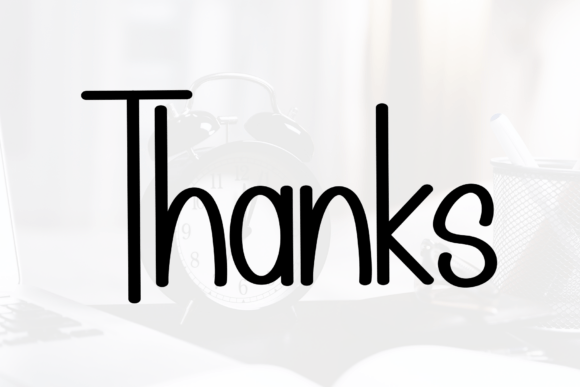
Introduction to Newyear Thick Font
Have you ever stared at a blank canvas, marker in hand, waiting for inspiration to strike? The thrill of creating something new is what drives many designers, and for those who crave a unique touch, the Newyear Thick Font is the perfect companion. This handwritten font is more than just a design element – it’s a statement piece that adds a touch of personality to any project.
Whether you’re working on a branding project, designing wedding supplies, or creating a marketing promotion, the Newyear Thick Font is a valuable asset in your creative toolkit. With its relaxed and sporty feel, it’s perfect for adding a luxurious and elegant touch to your designs while still maintaining a casual vibe. And the best part? It’s available for free download, making it an excellent high-quality design resource for any project.
As a designer, having access to versatile and high-quality design elements like the Newyear Thick Font can make all the difference in bringing your creative vision to life. With its transparent background and endless possibilities for customization, this font is sure to become a go-to design resource for your next project.
Key Features of Newyear Thick Font
- Unique, bold, and elegant design style, perfect for creative projects and festive themes.
- High-quality font with a transparent background, allowing for seamless integration into various design elements.
- Designed to be highly legible, even in small font sizes, making it ideal for titles, headings, and signage.
- Comes with a comprehensive character set, including uppercase and lowercase letters, numbers, and punctuation marks.
Honest Review: Newyear Thick Font
I recently stumbled upon the Newyear Thick Font and I must say, it’s a great addition to any designer’s toolkit. With its high-quality design and versatility, it’s perfect for creative projects that require a bold and eye-catching font.
However, there are a few limitations to consider. The font may not be suitable for all design projects, particularly those that require a more subtle or elegant look. Additionally, the font’s boldness may be overwhelming in certain contexts.
- ⚠️ May not be suitable for all design projects
- ⚠️ May be overwhelming in certain contexts
Overall, I’m impressed with the Newyear Thick Font and I think it’s a valuable design resource for any creative project. While it may have some limitations, its high-quality design and versatility make it a great addition to any designer’s toolkit.
- Experiment with font sizes and combinations to achieve the desired effect.
- Pair Newyear Thick Font with other design elements, such as bold lines or minimalist backgrounds, to create visual interest.
- Use this font for titles, headings, or quotes to add a touch of sophistication to your designs.